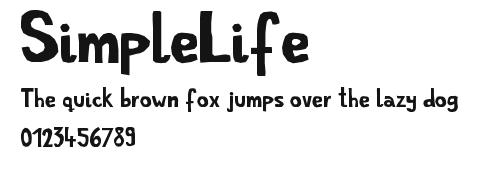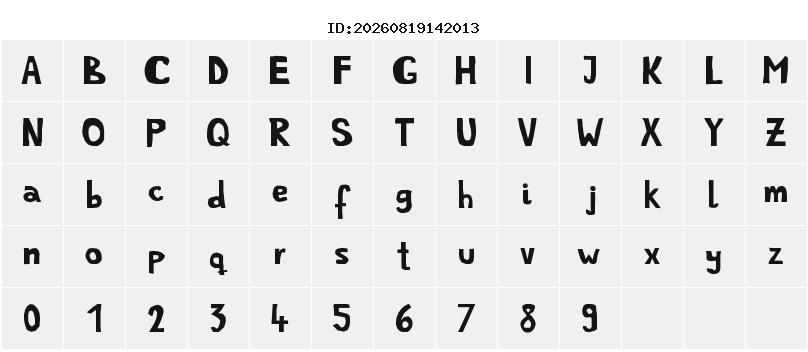
SimpleLife Preview
• Font Name: SimpleLife
• Full Font Name: SimpleLife
• Version: Version 1.00 May 19, 2006, initial release
About SimpleLife.ttf
SimpleLife.ttf is a modern, elegant sans-serif font designed for ultimate readability and visual harmony. Perfect for branding, headlines, web design, and print materials.